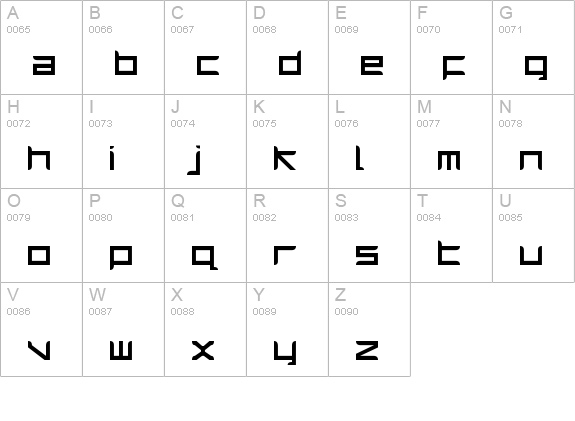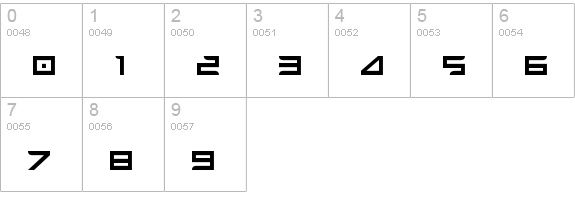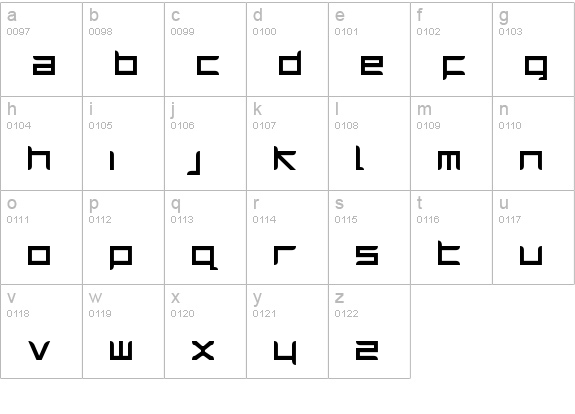
Harrier font is a sleek and stylish typeface that exudes modernity and professionalism. With its clean lines and geometric shapes, this font is perfect for a wide range of design projects, from logos to headlines and everything in between. What sets Harrier font apart is its versatility. It can be used for both display purposes and body text, making it a great choice for any design that requires a contemporary touch. The letters are perfectly balanced, ensuring optimal legibility and readability in any size or format. One of the best things about Harrier font is that it is free! Yes, you read that right. This amazing font is freely available to download at FontsMarket.com. Whether you are a professional designer or just a design enthusiast, you can now access this exceptional typeface without breaking the bank. Downloading Harrier font from FontsMarket.com is quick and easy. Simply head over to the website, locate the font, and with just a few clicks, it will be ready to enhance your design projects. With the ability to freely download Harrier font, you can now add a touch of elegance and sophistication to your creations without spending a dime. So why wait? Take advantage of this incredible opportunity to elevate your designs with Harrier font. Download it today from FontsMarket.com and let your creativity soar to new heights.